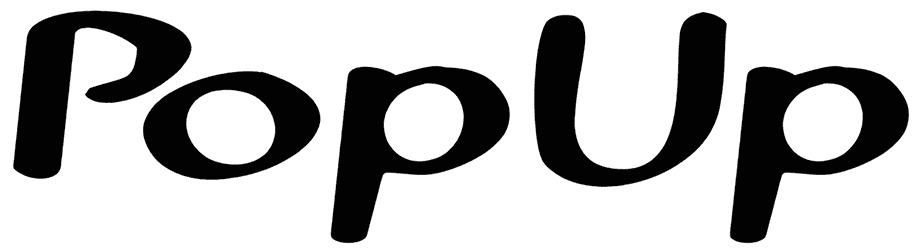
PopUp Font
Designed byManfred Klein
If you are looking to create a modern simplicity in your projects, don’t miss a single moment to add PopUp to your designs. This rounded font can give a friendly appeal to your designs and is a great example of minimalistic concepts.
So if you are tired of sharp and angular edges and want to design a logo, headline, newspaper, or poster without time, you will need this versatile font.